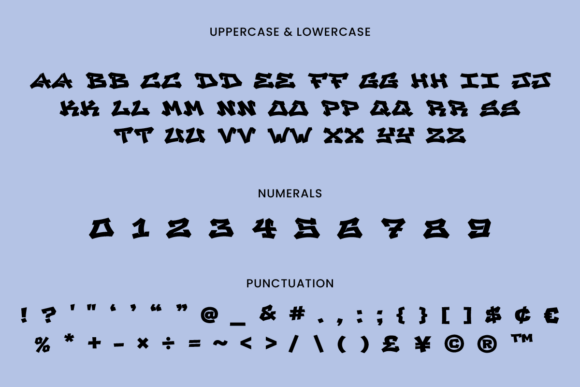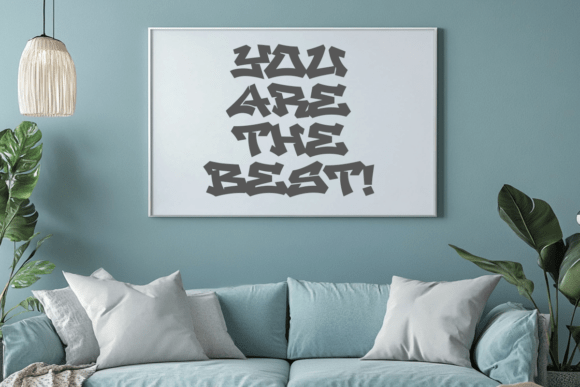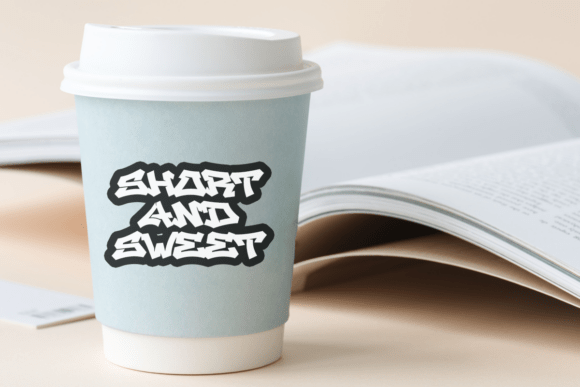
Introduction to Flawless Graffiti Font
Have you ever stared at a blank canvas, feeling the urge to unleash your creativity and leave a lasting mark? That’s exactly what the Flawless Graffiti Font is designed to inspire – a bold, expressive, and dynamic typeface that embodies the raw energy of street art. Whether you’re working on a creative project, designing a logo, or simply looking for a design resource to elevate your social media graphics, this font is sure to make a statement.
With its edgy curves, authentic hand-drawn feel, and transparent background, the Flawless Graffiti Font offers high-quality design options that are perfect for a wide range of applications, from apparel to posters. And the best part? This versatile font is available for free download, making it an invaluable resource for designers of all levels.
Key Features of Flawless Graffiti Font
- Unique, high-quality design perfect for creative projects and artistic expressions
- Transparent background, allowing for effortless layering and customization in design applications
- High-resolution design, ideal for printing and display on various mediums, including digital screens and paper
- Perfect for designers, artists, and creatives looking to add a touch of urban flair to their projects
- Supports a wide range of languages, making it a versatile design resource for international projects
Honest Review: Flawless Graffiti Font
As a designer, I’m always on the lookout for high-quality design resources that can elevate my creative projects. The Flawless Graffiti Font is one such resource that caught my attention. I downloaded it for free, and I must say, I was impressed with the initial results.
Here are some aspects where the Flawless Graffiti Font shines: ✨
- High-quality design: The font is well-designed and looks great on both light and dark backgrounds.
- Easy to use: The font is easy to apply and adjust in most design software.
- Perfect for creative projects: The Flawless Graffiti Font is ideal for adding a touch of graffiti-inspired flair to your designs.
However, there are a few limitations to consider: ⚠️
- Limited customization options: While the font looks great out-of-the-box, customization options are limited, which may not be suitable for all design projects.
- No transparent background support: The font does not support transparent backgrounds, which may be a limitation for designs that require a see-through effect.
Overall, the Flawless Graffiti Font is a solid design resource that can add a unique touch to your creative projects. While it has its limitations, it’s a great option for designers who want a high-quality, free font that’s easy to use.
Tips for Getting the Most Out of Flawless Graffiti Font
Use the Flawless Graffiti Font in conjunction with other design elements to create a unique and eye-catching design. Experiment with different font sizes and colors to find the perfect combination for your project. This free download is a valuable design resource that can help take your creative project to the next level.
The Flawless Graffiti Font is perfect for use in graphic design projects, such as posters, flyers, and social media graphics. It’s also great for use in presentations and documents, such as business reports and newsletters. Use this font to add a creative touch to your design and make it stand out from the crowd.